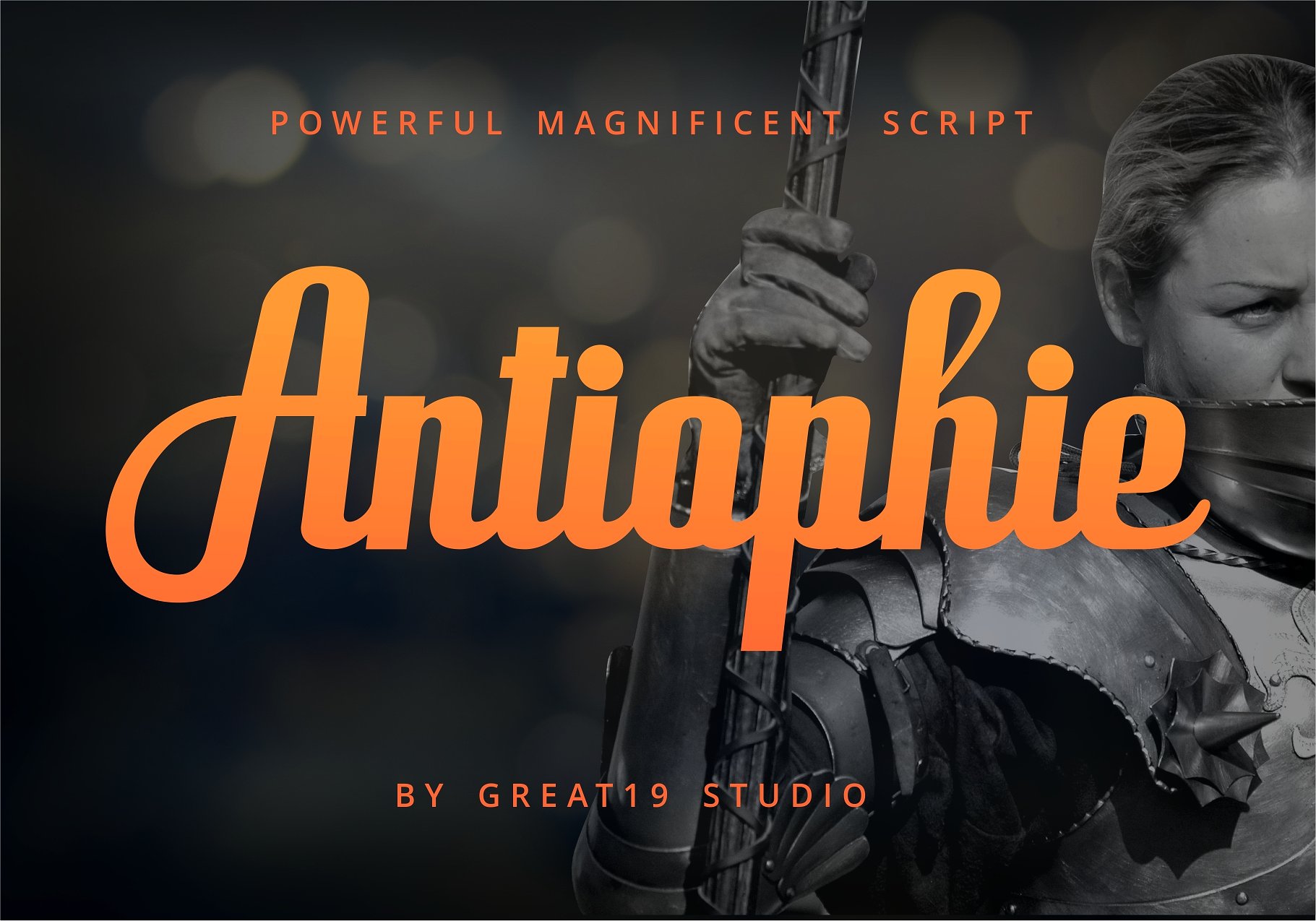
Antiophie Typeface
A bold and elegant type face but also outstanding. This font was created to look strong, powerful and fabulous on its own as a single word or typographic design. Antiophie script is perfect for Tittle, Magazine, Logotype, Packaging, Branding, Book Cover, Header, Poster and other creative design that needs an eye catching type face.